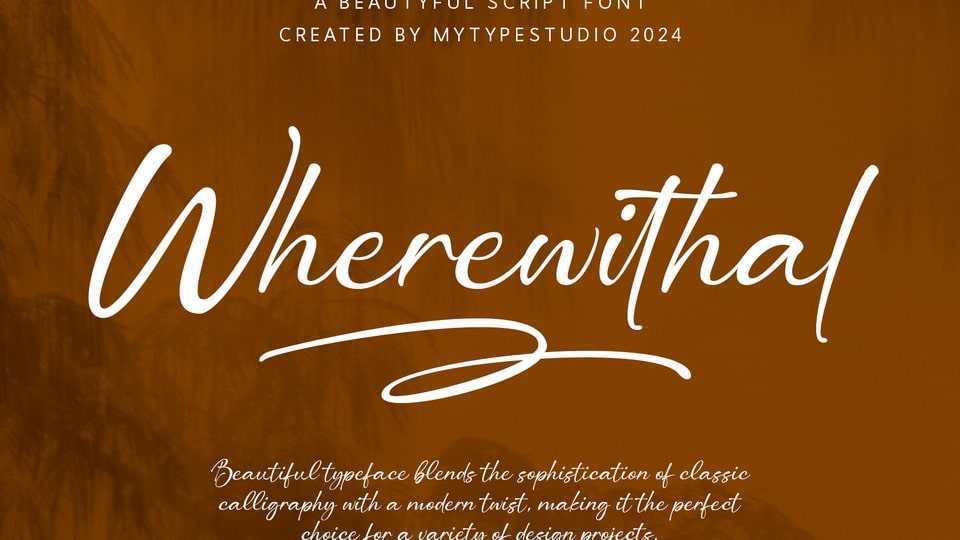
Wherewhital Font › Fontesk – Download Grátis
Download Wherewhital font, a beautiful typeface blends the sophistication of classic calligraphy with a modern twist, making it the perfect choice for a variety of design projects.
Designer: Mytype Studio